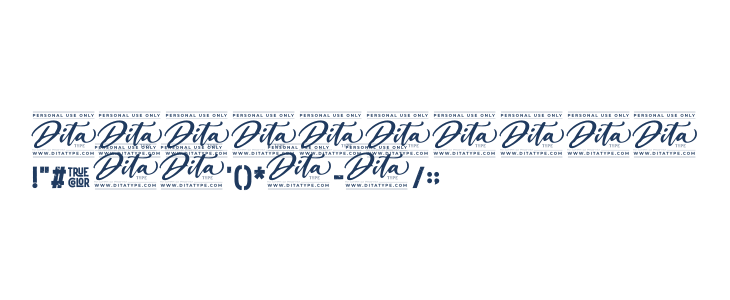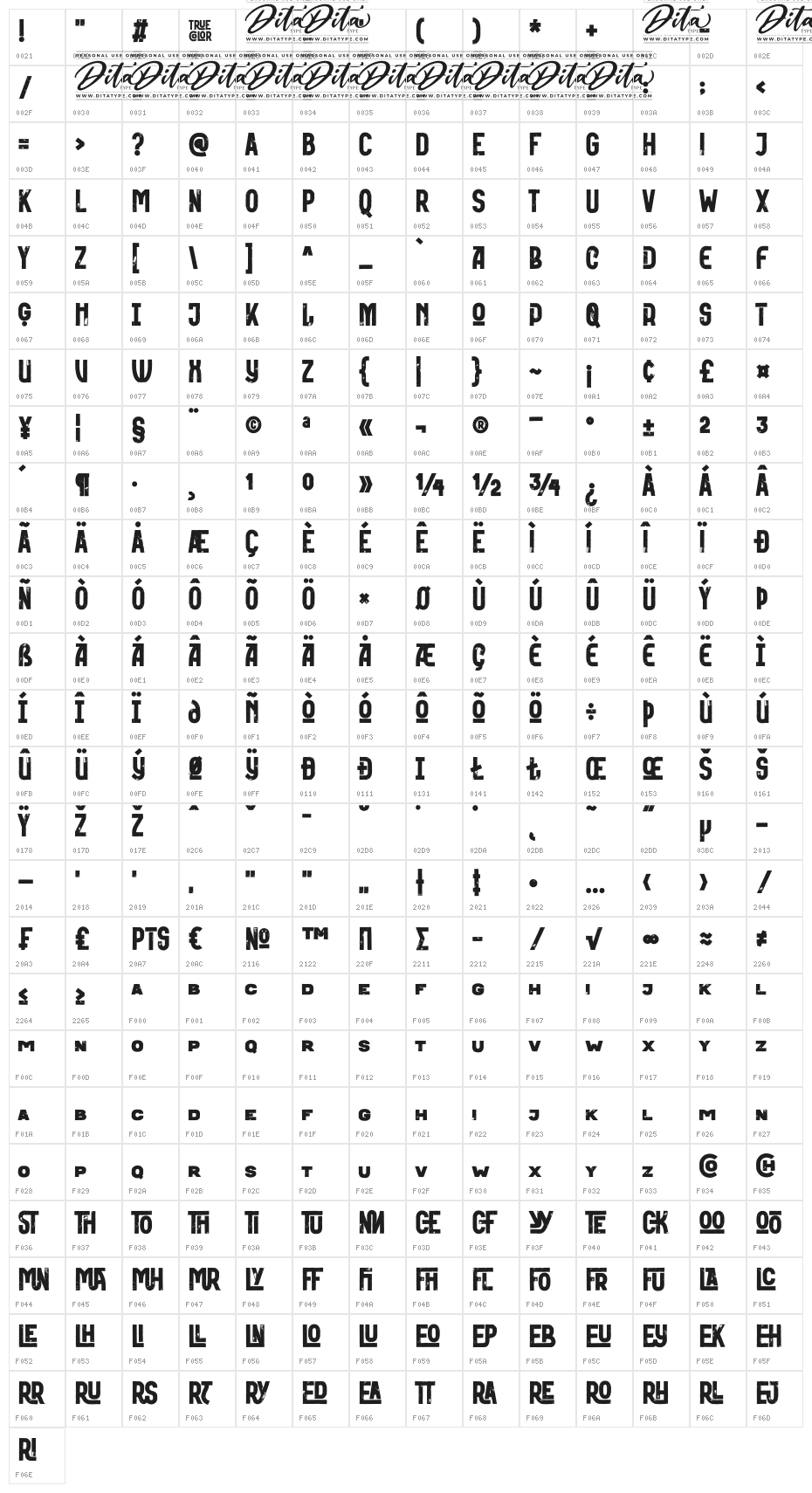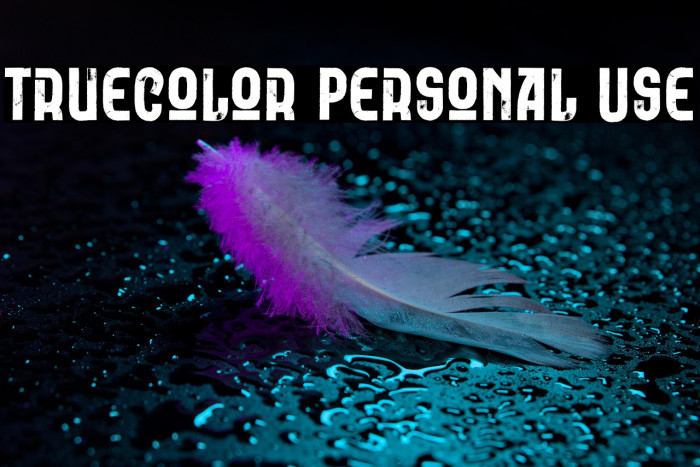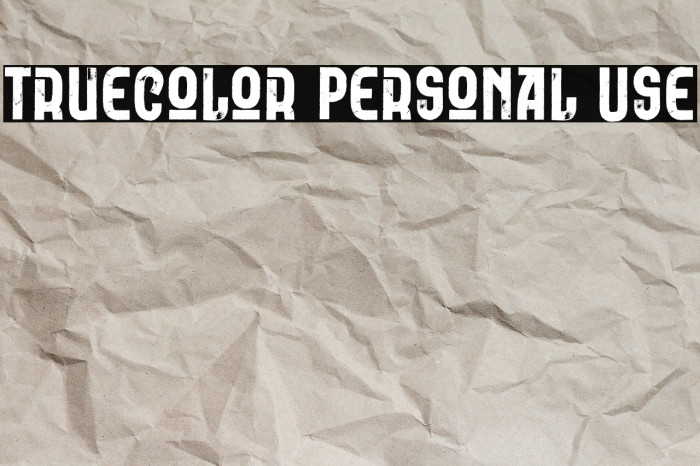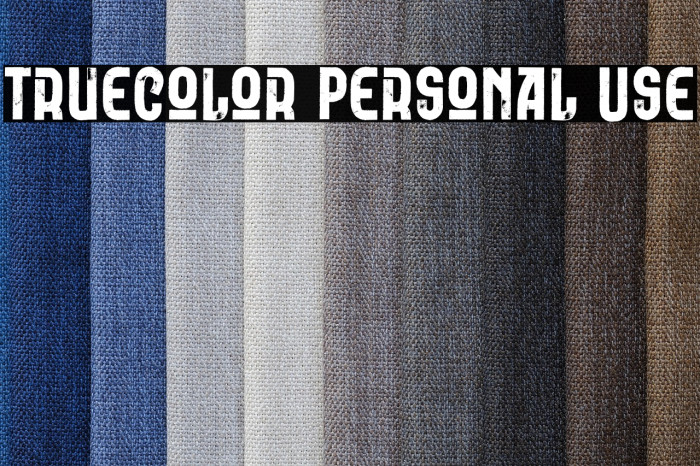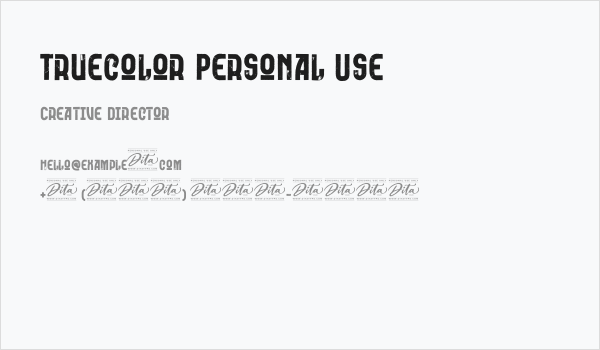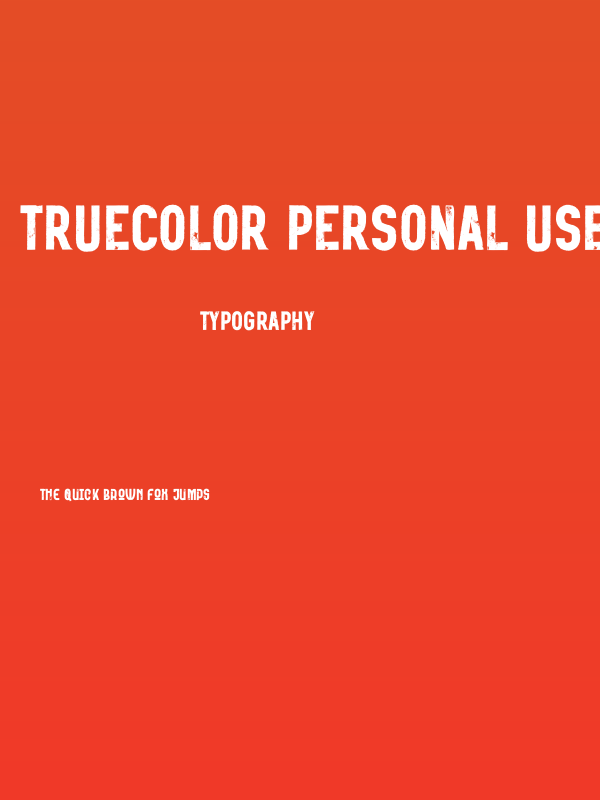
Truecolor Personal Use Font
Truecolor Personal Use Description
This font features a bold, distressed style with a rugged, textured appearance. The uppercase letters are strong and impactful, making them ideal for attention-grabbing headlines. The lowercase letters maintain the same boldness, ensuring consistency throughout. The numbers and special characters follow the same design, adding versatility to the font. The overall look is reminiscent of vintage or industrial themes, with a modern twist that makes it suitable for contemporary designs.
| Overall Style | Vintage, Industrial |
| Proposed Projects | Ideal for posters, branding, logos, and any project requiring a strong, vintage aesthetic. |